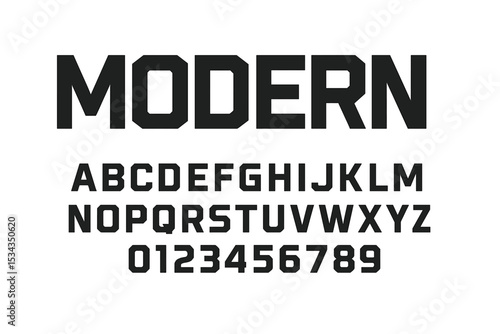
The Modern Alphabet Font is a typography style suited for urban settings, often used in technology, digital, movie, and game logo designs, presented as a vector illustration